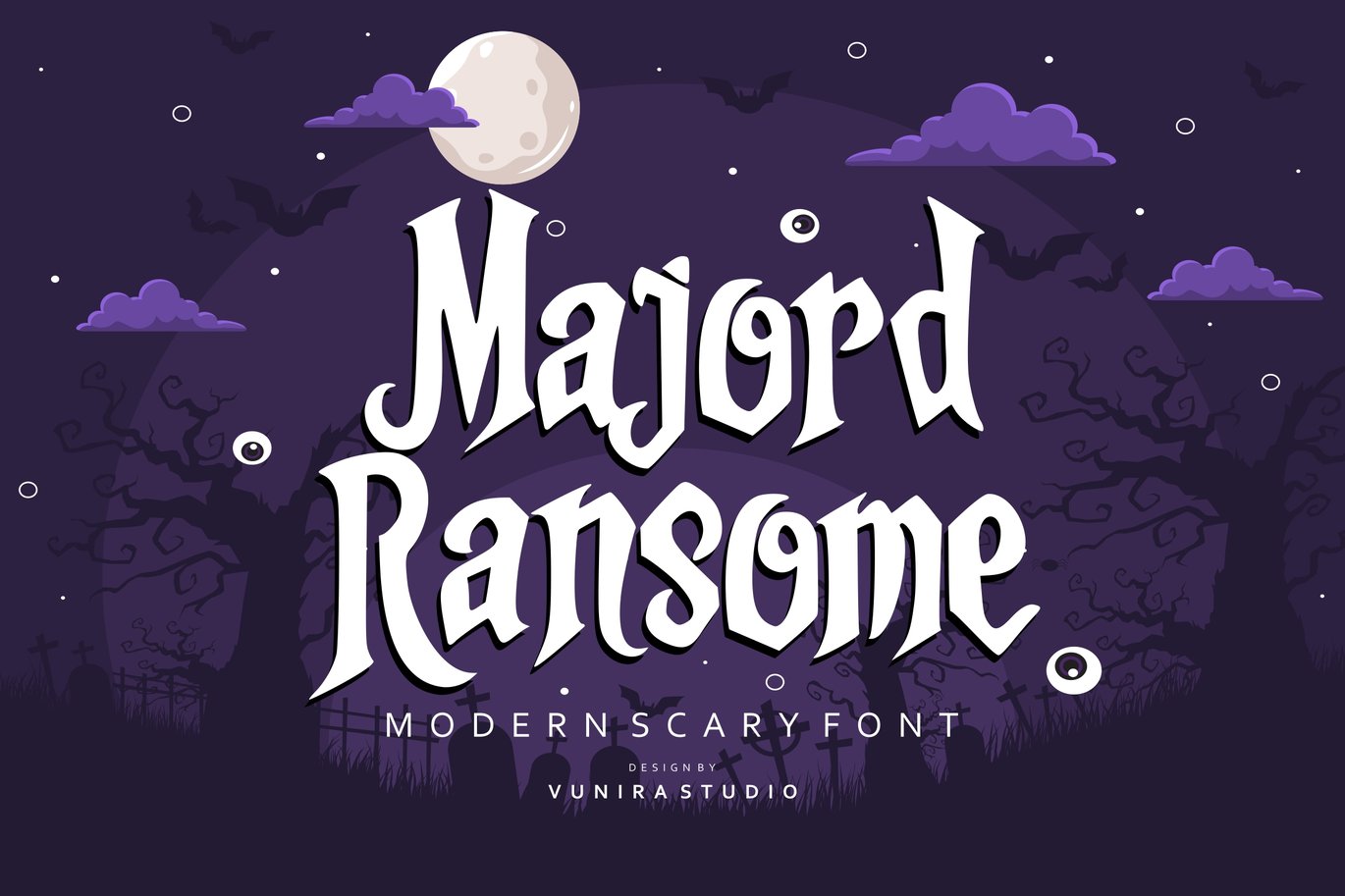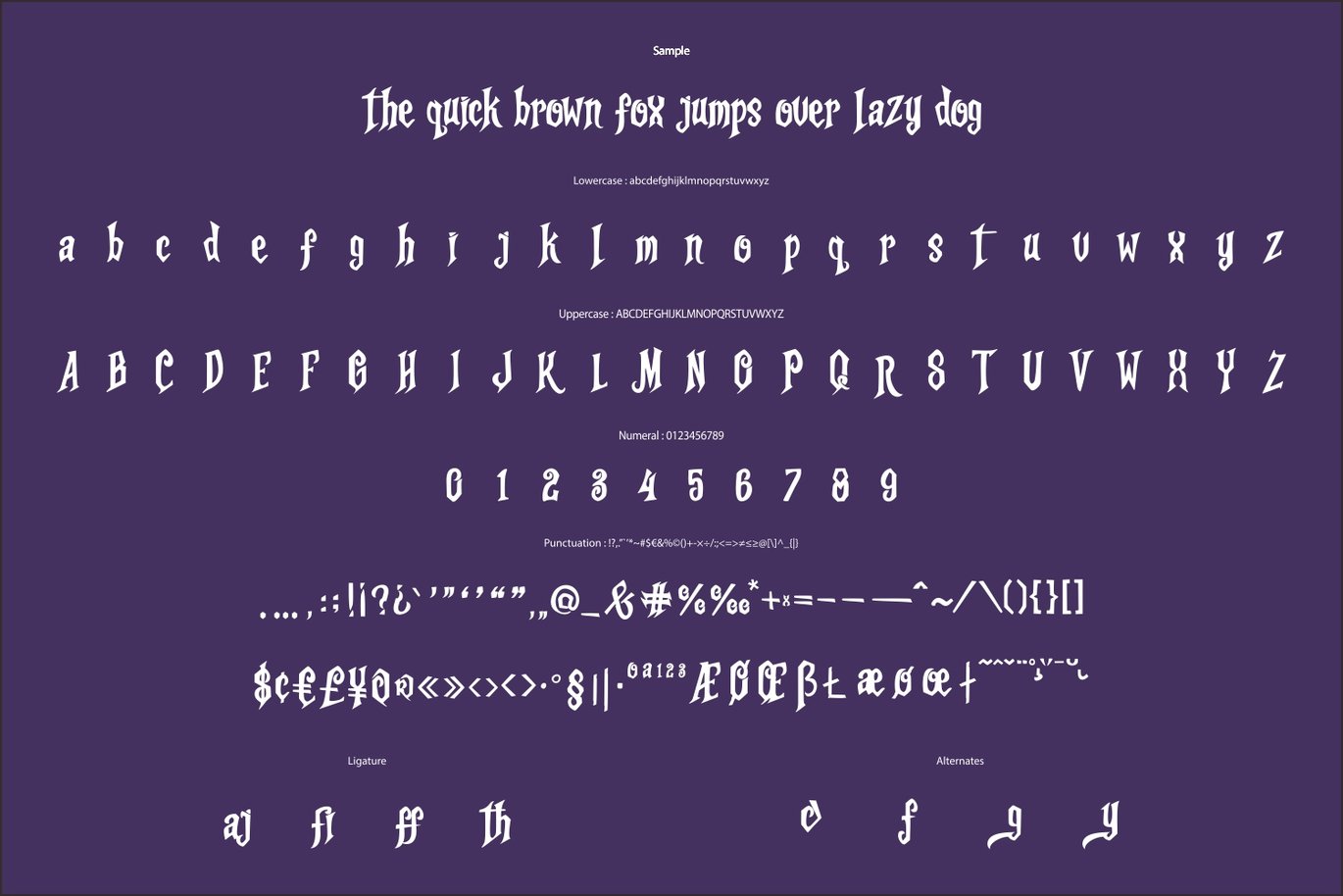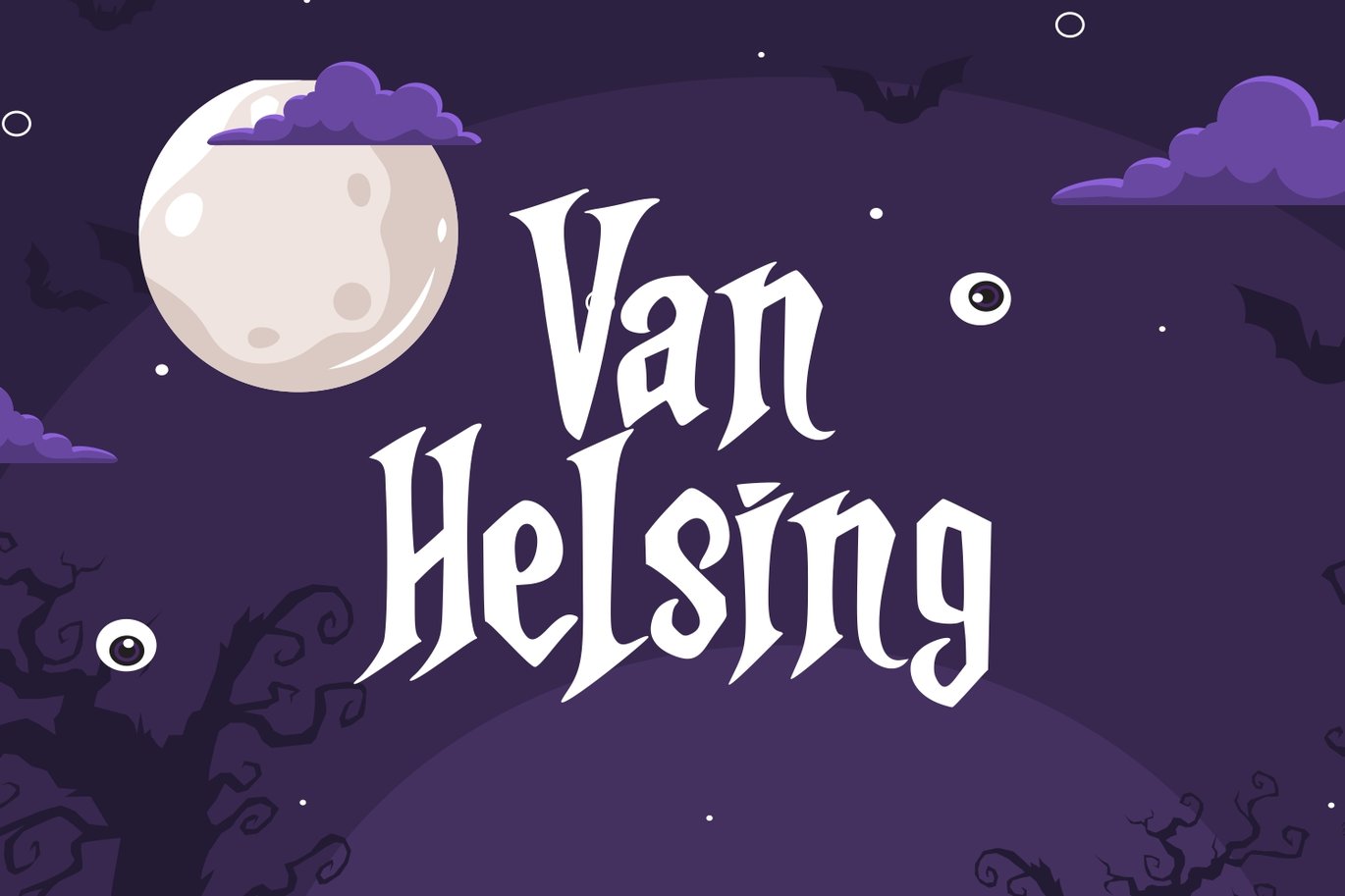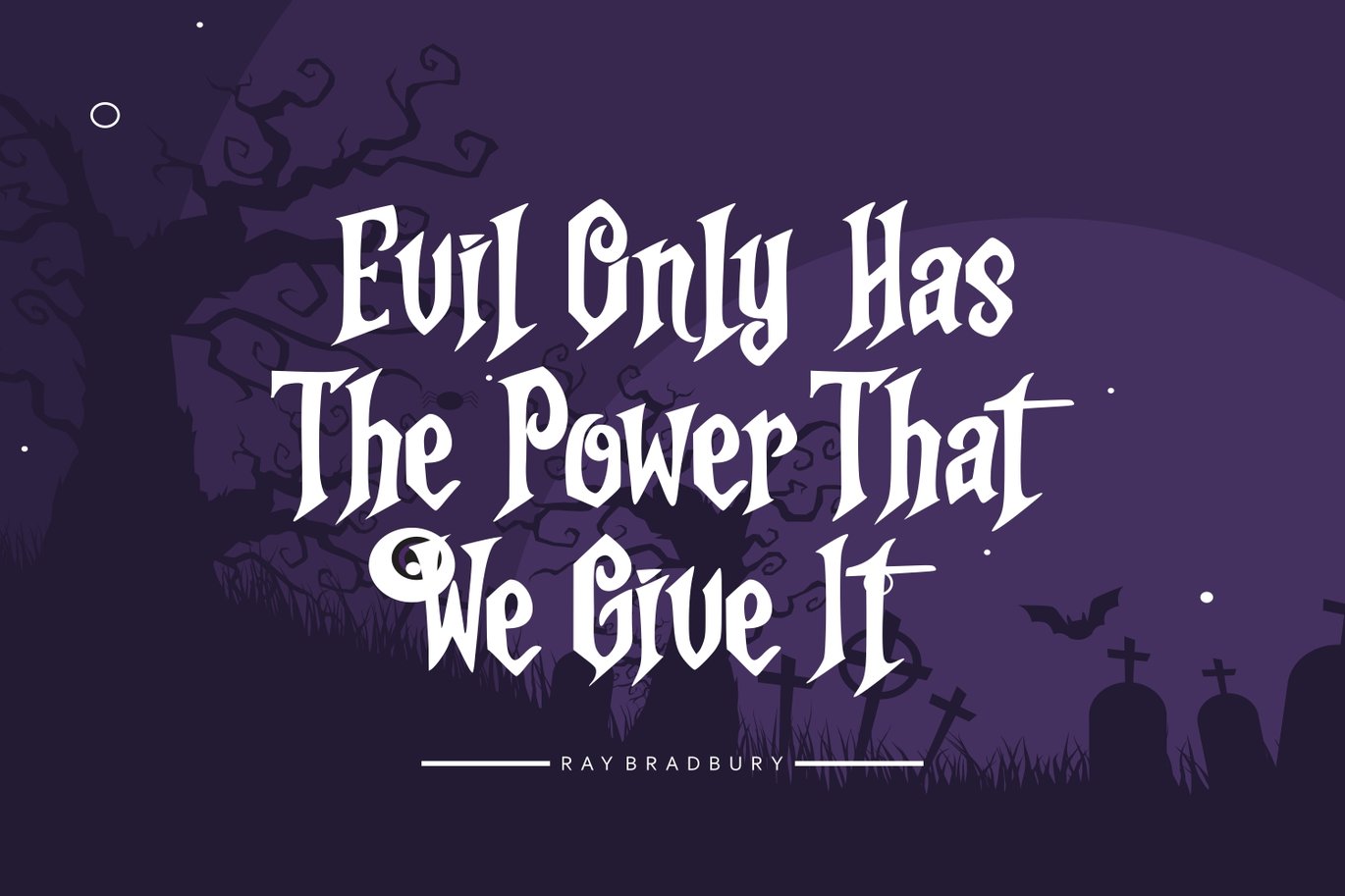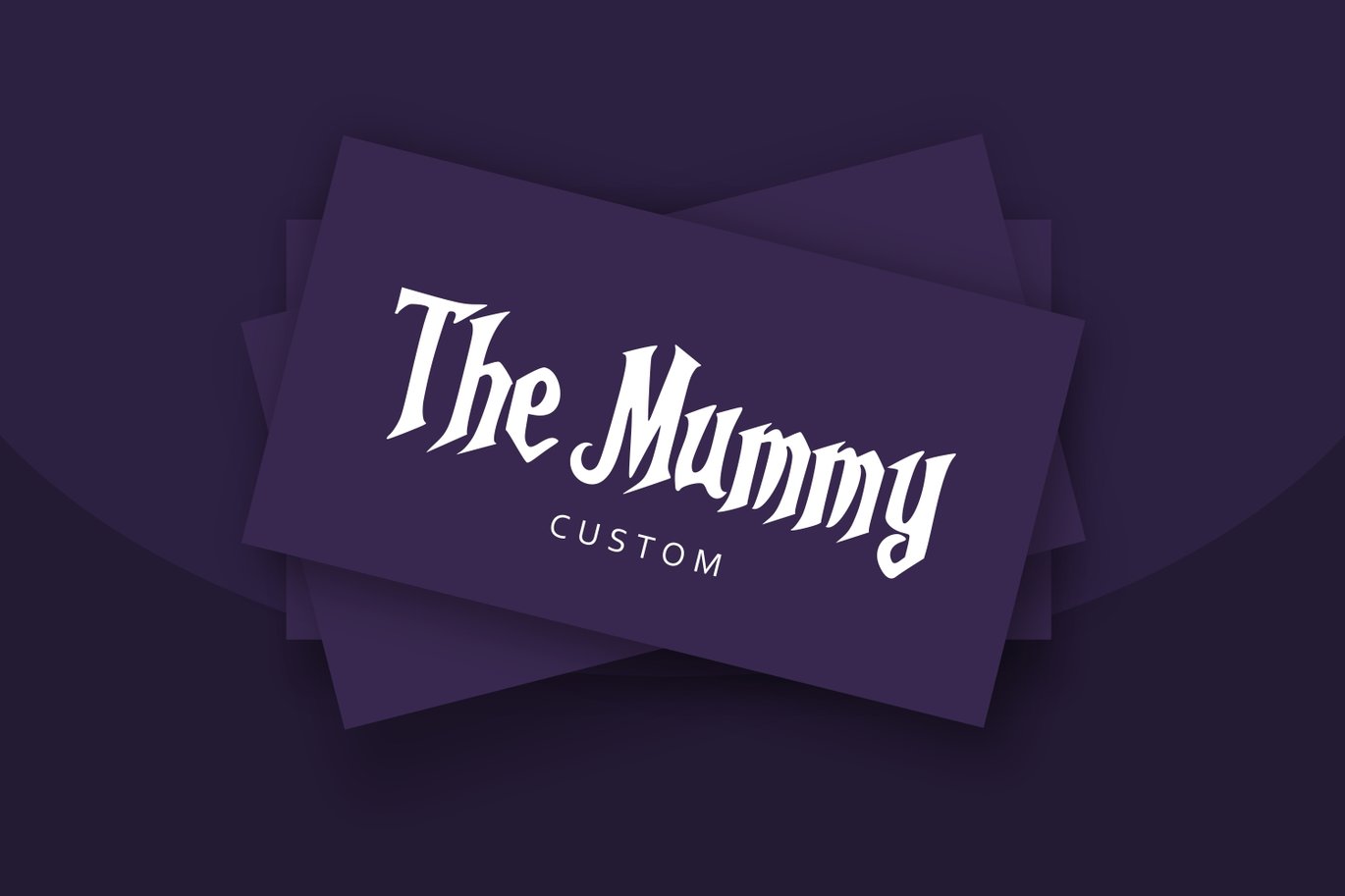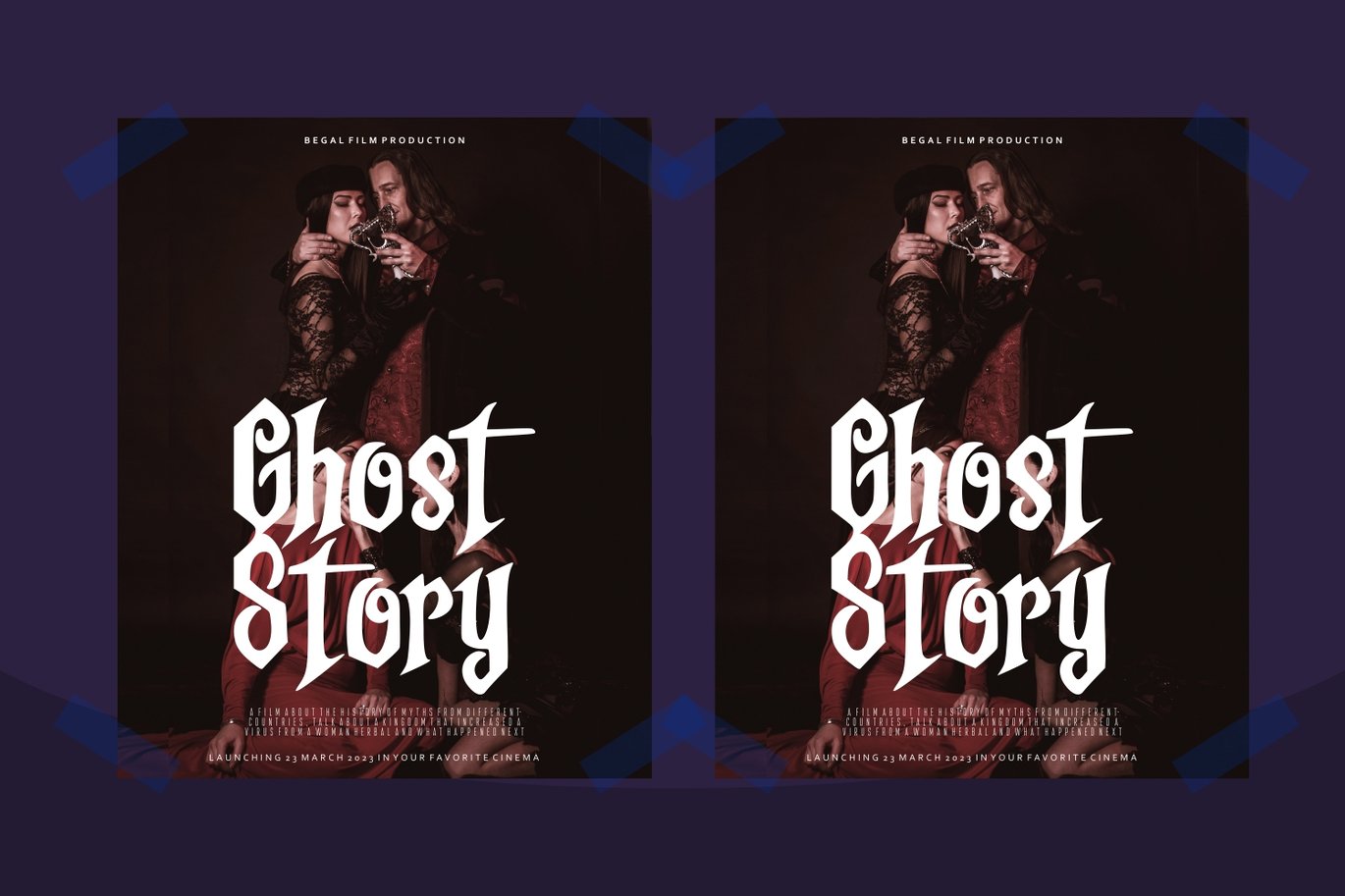
Majord Ransome – Modern Scary Font
Majord Ransome – Modern Scary Font with a calligraphy style, So beautiful on invitation like greeting cards, branding materials, business cards, quotes, posters, and more!